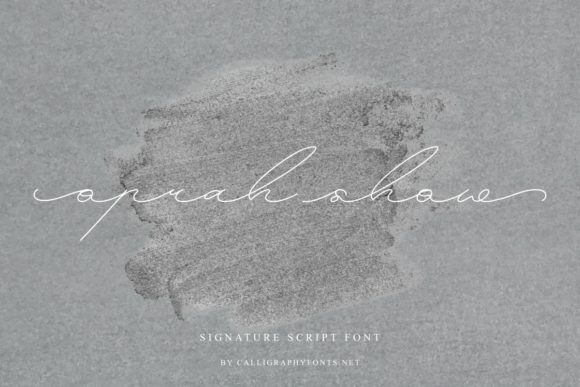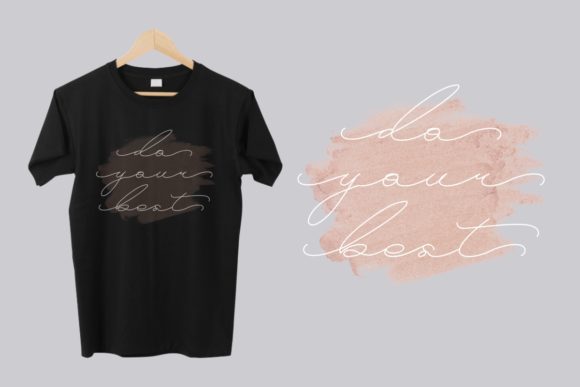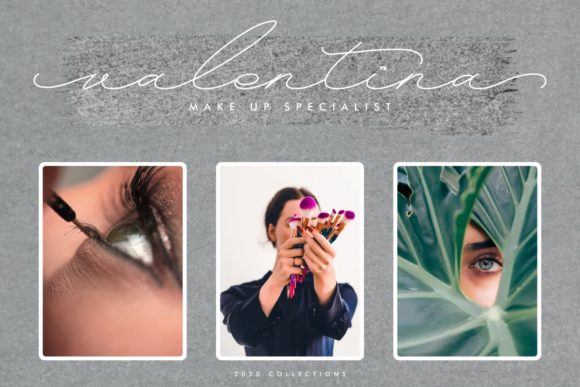
Introduction to Oprah Show Font
Have you ever been working on a creative project, pouring your heart and soul into it, only to feel like something’s missing? Maybe it’s the perfect font to match your elegant aesthetic, or the right touch of nostalgia to make it truly special. For designers, finding that elusive design element can be a game-changer. And that’s exactly where the Oprah Show Font comes in.
This lovely handwritten font is more than just a pretty face – it’s a high-quality design resource that can elevate your projects to new heights. With its thin and delicate lines, it’s perfect for adding a touch of whimsy and playfulness to your designs. And the best part? You can download it for free, making it an accessible and valuable addition to any designer’s toolkit.
Oprah Show Font
- Unique, hand-drawn design inspired by the Oprah Show logo, perfect for creative projects.
- Perfect design resource for those looking for a distinctive and recognizable font for their projects.
Honest Review: Oprah Show Font
I recently stumbled upon the Oprah Show Font while searching for a unique design resource to elevate my creative project. At first glance, I was drawn to its modern and elegant aesthetic.
What works well: ✨ The Oprah Show Font offers a high-quality design that’s perfect for creating eye-catching headings and titles. Its transparent background makes it easy to layer over images or other design elements. I appreciate that it’s available as a free download, making it a valuable asset for designers on a budget.
Here are some key features:
- Modern and elegant design
- High-quality font
What’s not so great: ⚠️ The Oprah Show Font may not be suitable for projects that require a more formal or traditional tone. Additionally, the font’s size and weight may not be as versatile as some other fonts on the market.
Overall, I’m impressed with the Oprah Show Font’s design and versatility. While it may have some limitations, it’s a great addition to any designer’s toolkit. If you’re looking for a unique and modern font for your creative project, I’d definitely recommend giving it a try.
Oprah Show Font
Use the Oprah Show Font to add a touch of elegance and sophistication to your design. Combine it with other high-quality design resources to create a unique and eye-catching visual identity. Experiment with different font sizes and styles to find the perfect balance for your creative project.
The Oprah Show Font is ideal for a variety of design projects, including logos, branding, and marketing materials. It’s also perfect for creating invitations, posters, and other visual aids. Use it to add a touch of glamour and sophistication to your design and make it stand out from the crowd.
Alternatives to Oprah Show Font
Pacifico Font is a beautiful, high-quality script font perfect for creative projects that require a touch of elegance. It features a transparent background and is ideal for use in logo designs, invitations, and other design elements. When to use: Wedding invitations, luxury brands, and high-end events. How it compares to Oprah Show Font: Pacifico has a more refined and sophisticated look compared to Oprah Show Font, making it suitable for more formal events.
Great Vibes Font is a free download font that offers a fun and playful vibe, making it ideal for creative projects that require a relaxed atmosphere. It features a transparent background and is perfect for use in social media graphics, advertisements, and other design elements. When to use: Social media graphics, advertisements, and casual events. How it compares to Oprah Show Font: Great Vibes Font has a more casual and laid-back look compared to Oprah Show Font, making it suitable for everyday use.